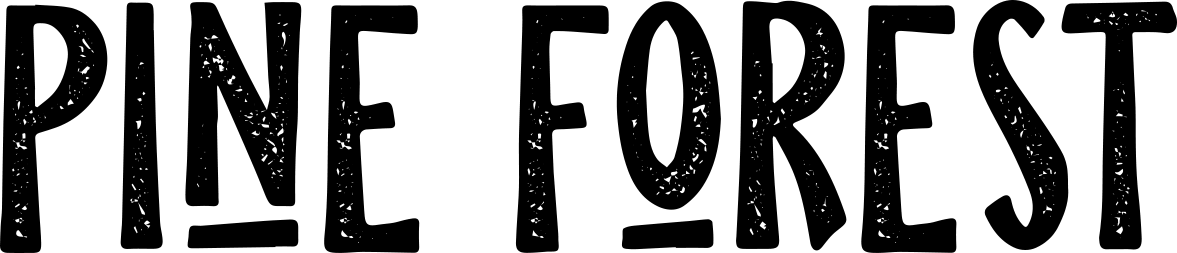
Pine Forest Font
For entering a retro image in your typography, tend for this eroded Pine Forest font to be more outstanding than before. Its grunge vibes surrounded by dotted and speckled designs will continuously attract regular attention. Despite just uppercase being available, this adventurous font would be successful in designing headlines, movie titles, book covers, posters, flyers, and other advertisements.